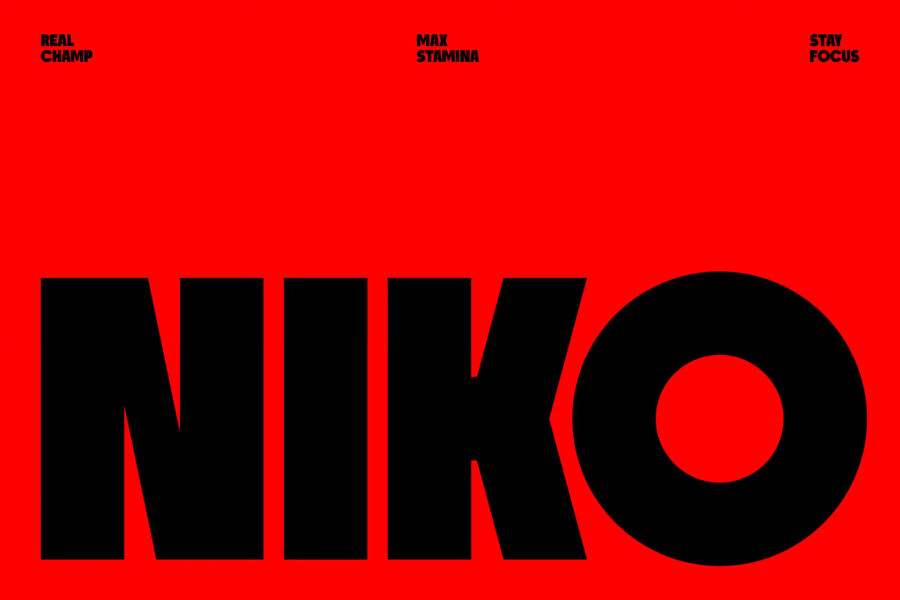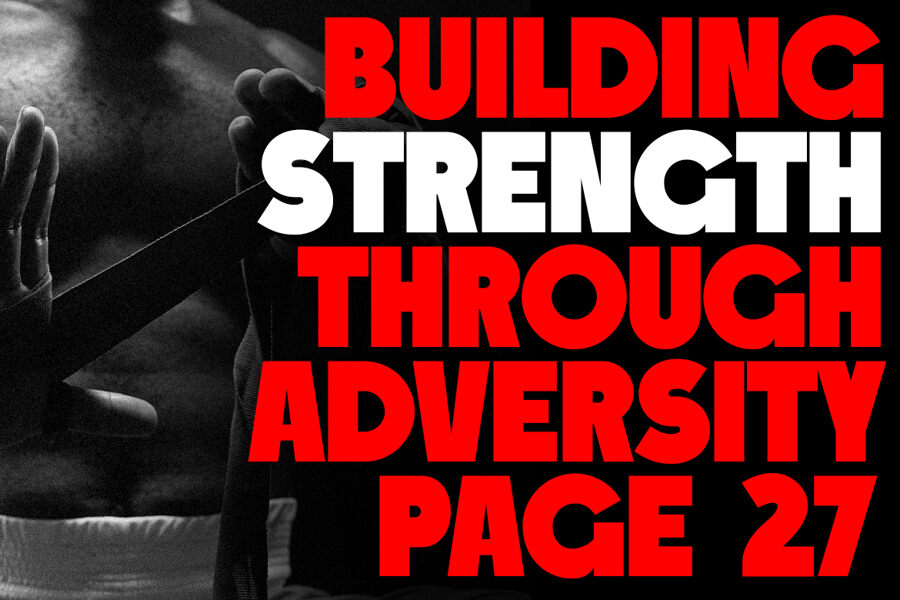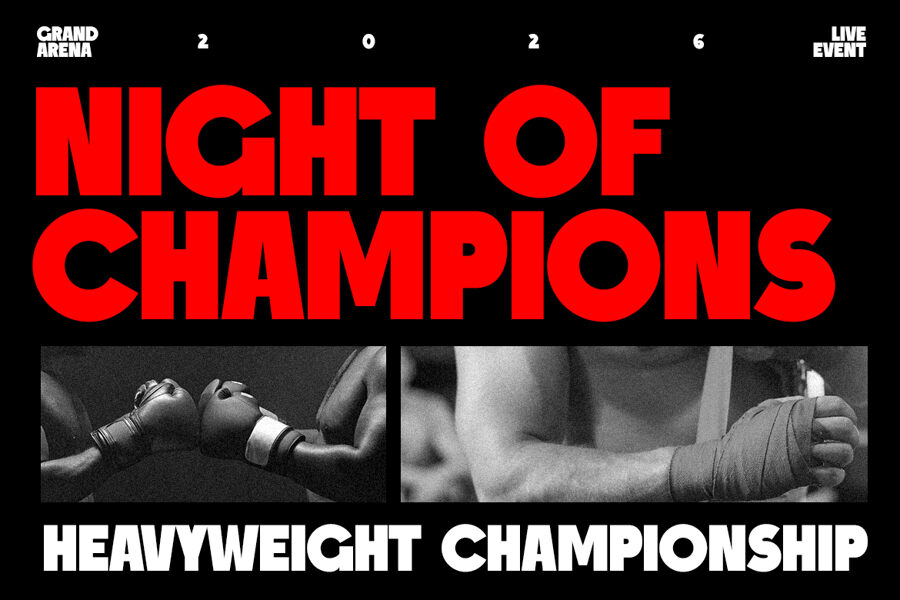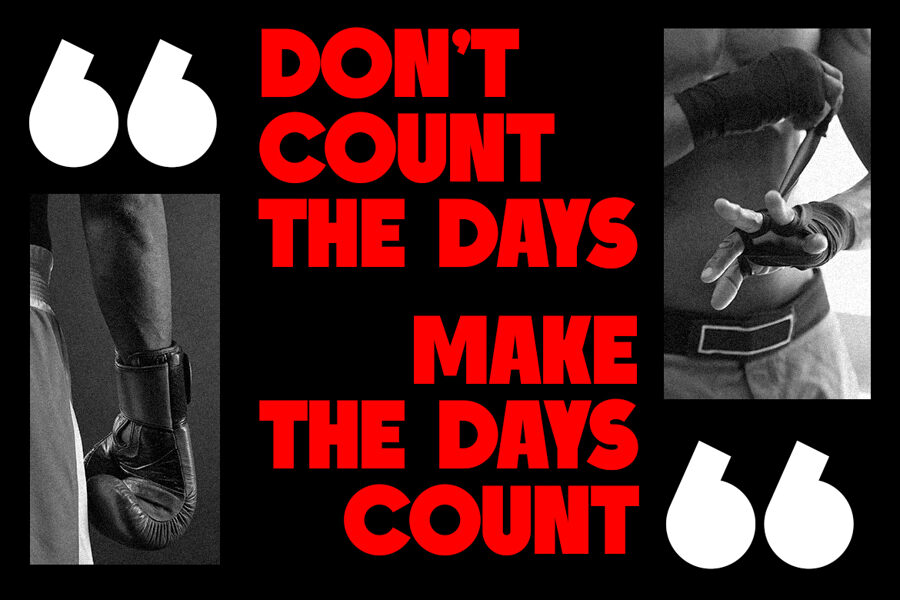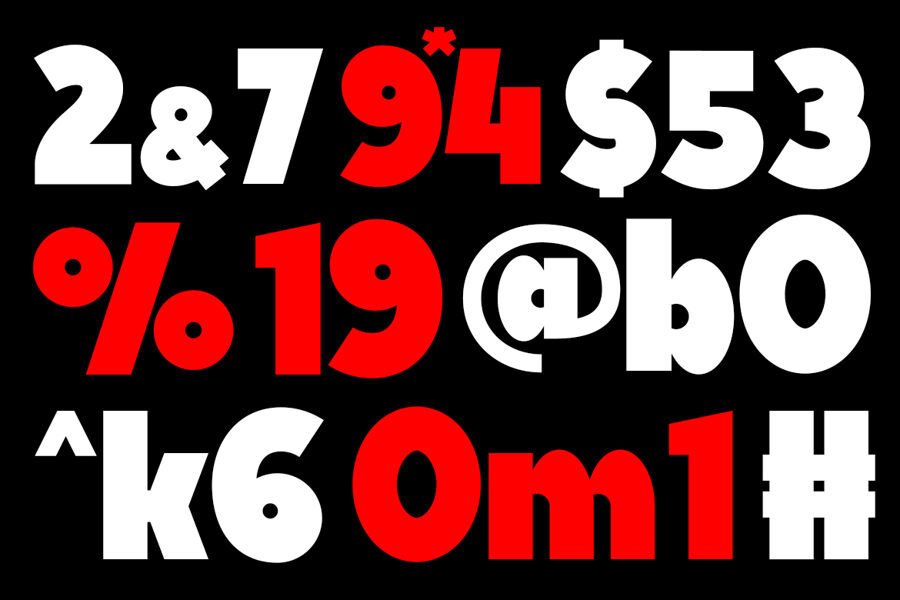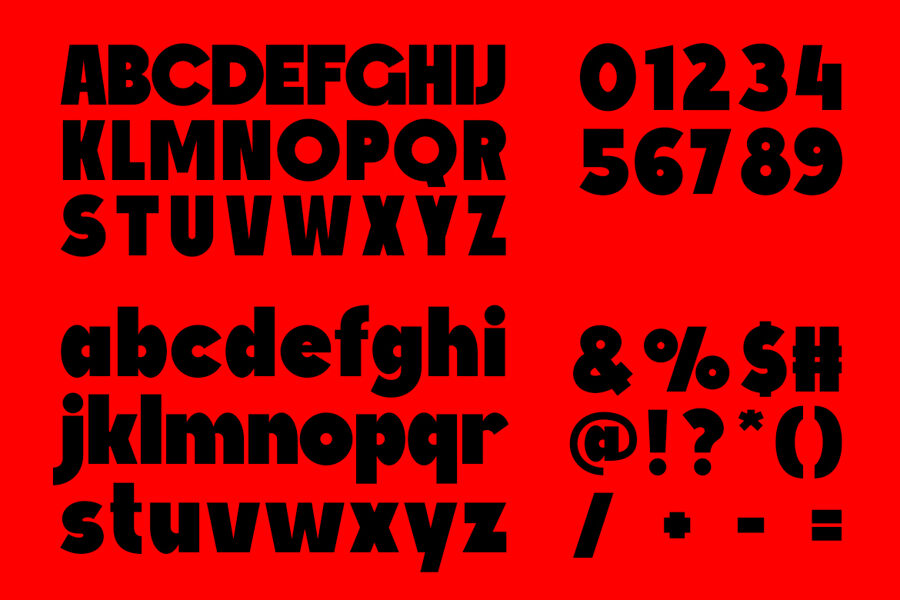
Niko Font
NIKO Font delivers fearless typography that commands attention through bold proportions, solid letterforms, and a modern athletic attitude. Unlike ordinary display fonts, NIKO turns every headline into a statement of strength and determination.
Its clean geometric structure creates instant visual impact, while its heavy weight keeps every message clear and powerful. As a result, your designs stand out across print and digital platforms. In addition, the strong construction pairs naturally with high-energy visuals, so every composition feels confident and dynamic.